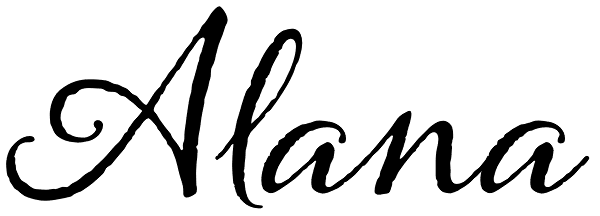
Alana
A connected script face that glows with casual elegance. Based on a personal handwriting style (rather than showy calligraphy), Alana’s inviting letterforms work convincingly in settings such as letter-writing and menu details, even at small sizes...